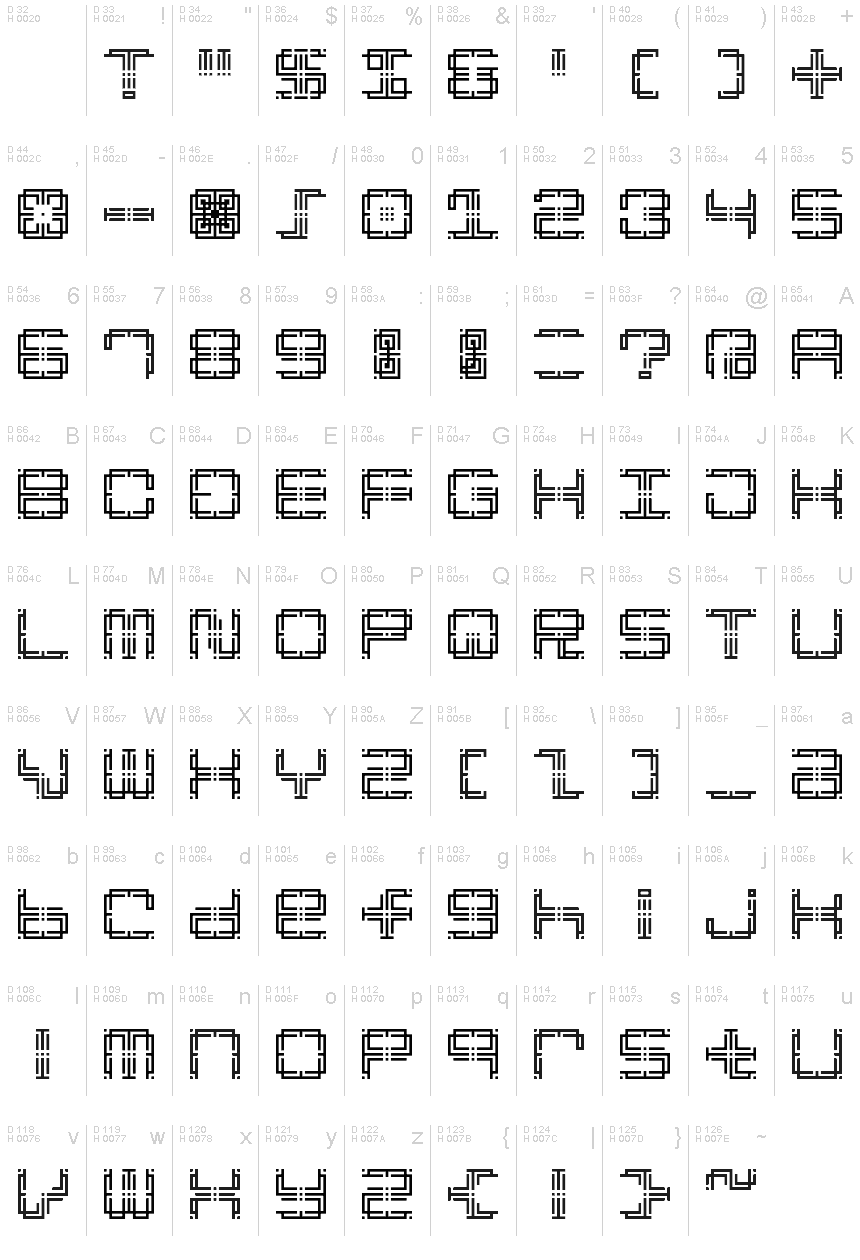
Anachronaut Regular
Designer description: This was once a shy, lineal design... then it rebelled against its parents, went subtractive, and finally became futuristic knotwork. Gnarly!